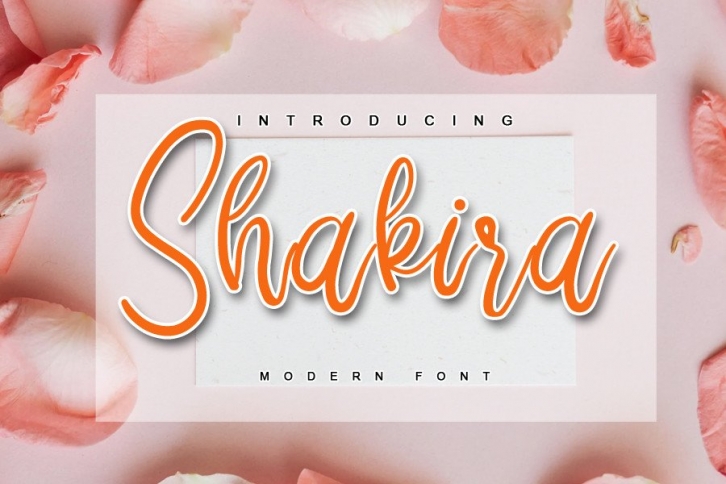
Shakira is a lovely, charming and whimsical handwritten font. Featuring characters that dance along the baseline, this font will add a luxury spark to any design project that you wish to create!